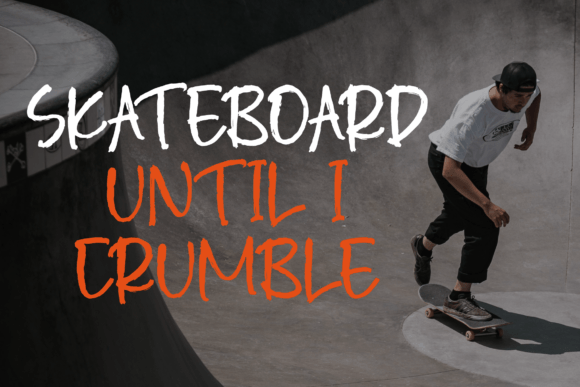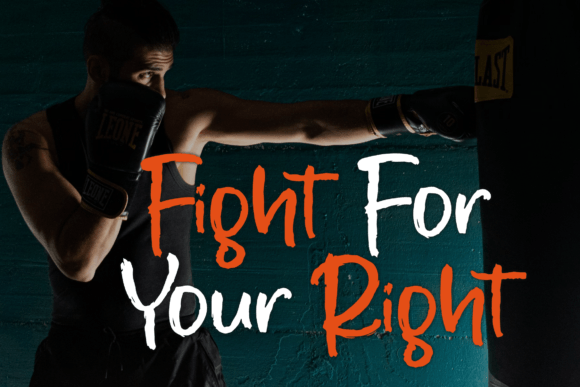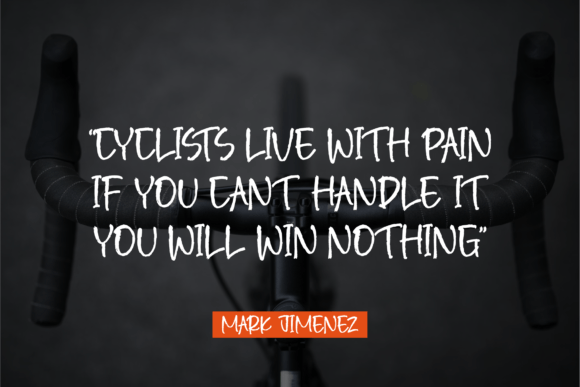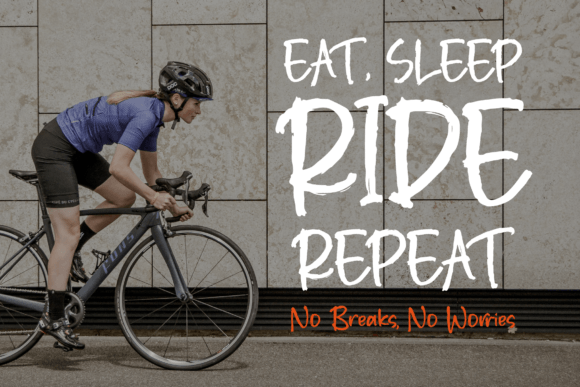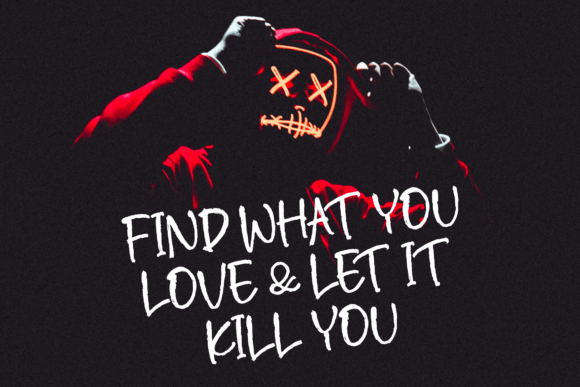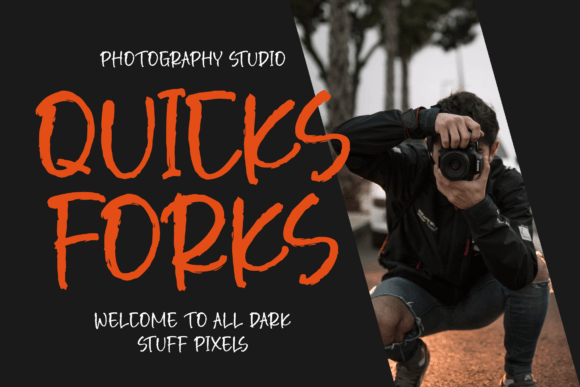
Introduction to Roughnation Font
Roughnation is a handwritten brush script designed to charm your projects.
From quotes and packaging to whatever else, this font will send the message you desire .
Key Features of Roughnation Font
Why Choose Roughnation Font?
Roughnation Font offers exceptional quality and versatility, making it a valuable addition to your design toolkit. Whether you’re creating for personal projects or commercial use, Roughnation Font delivers professional results.